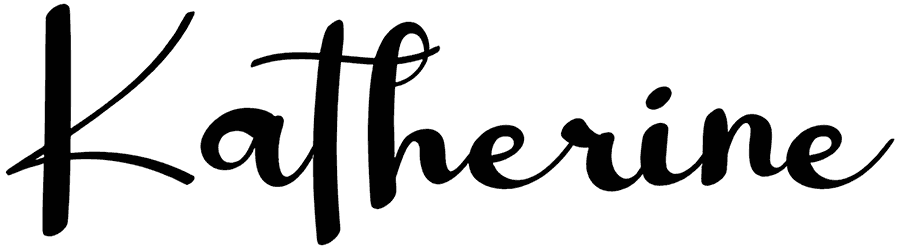
Katherine Font
Katherine, the script font, adds a touch of boldness to any print or digital project that could benefit from a handwritten look.
Its clear, pleasant, and curly design gives off a warm feeling despite its tiny lowercase letters, making this gorgeous font ideal for use on book covers, movie titles, posters, and video game design. It’s up to you to decide whether to keep things the same or deviate from convention.
Katherine is a fashionable script font. It is neatly crafted and highly detailed. Whatever the topic, Simply will be a wonderful asset to your fonts’ library, as it has the potential to enhance any creation.